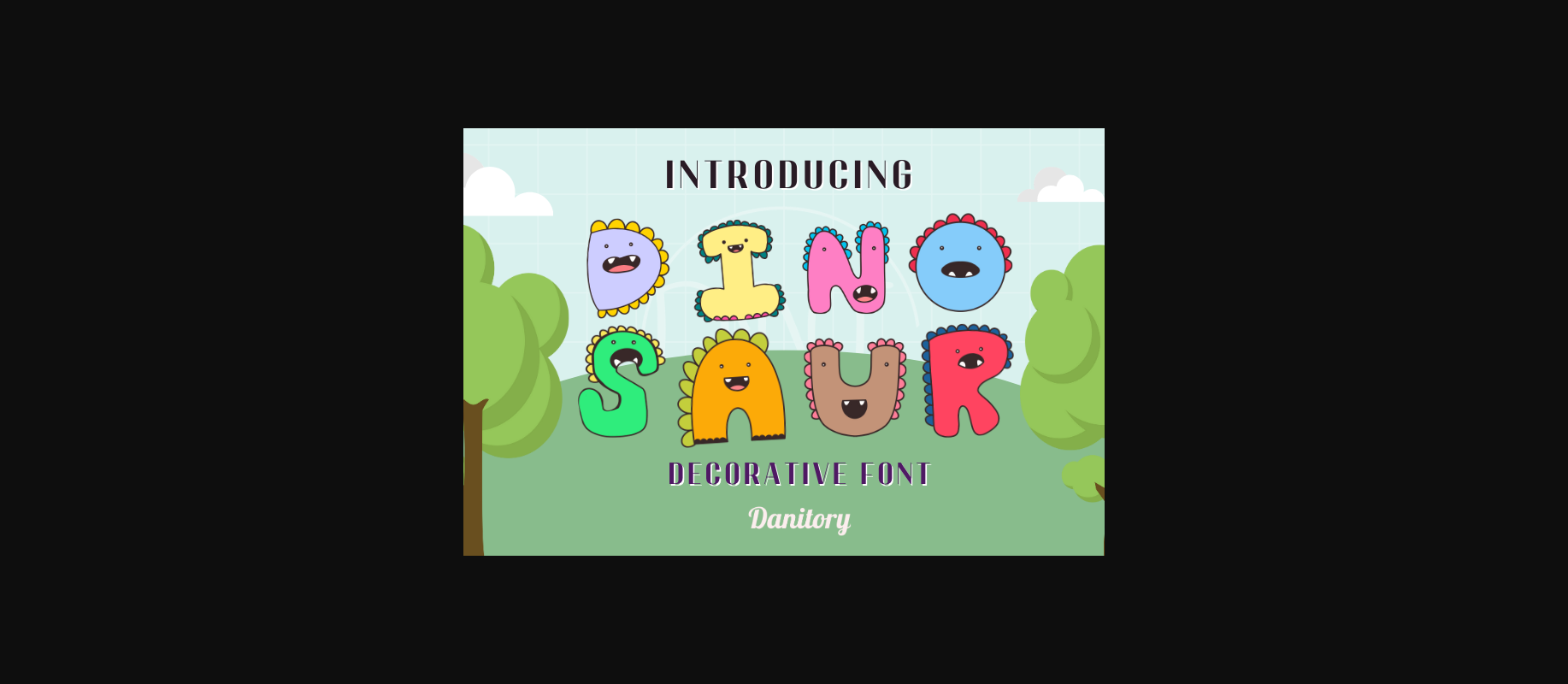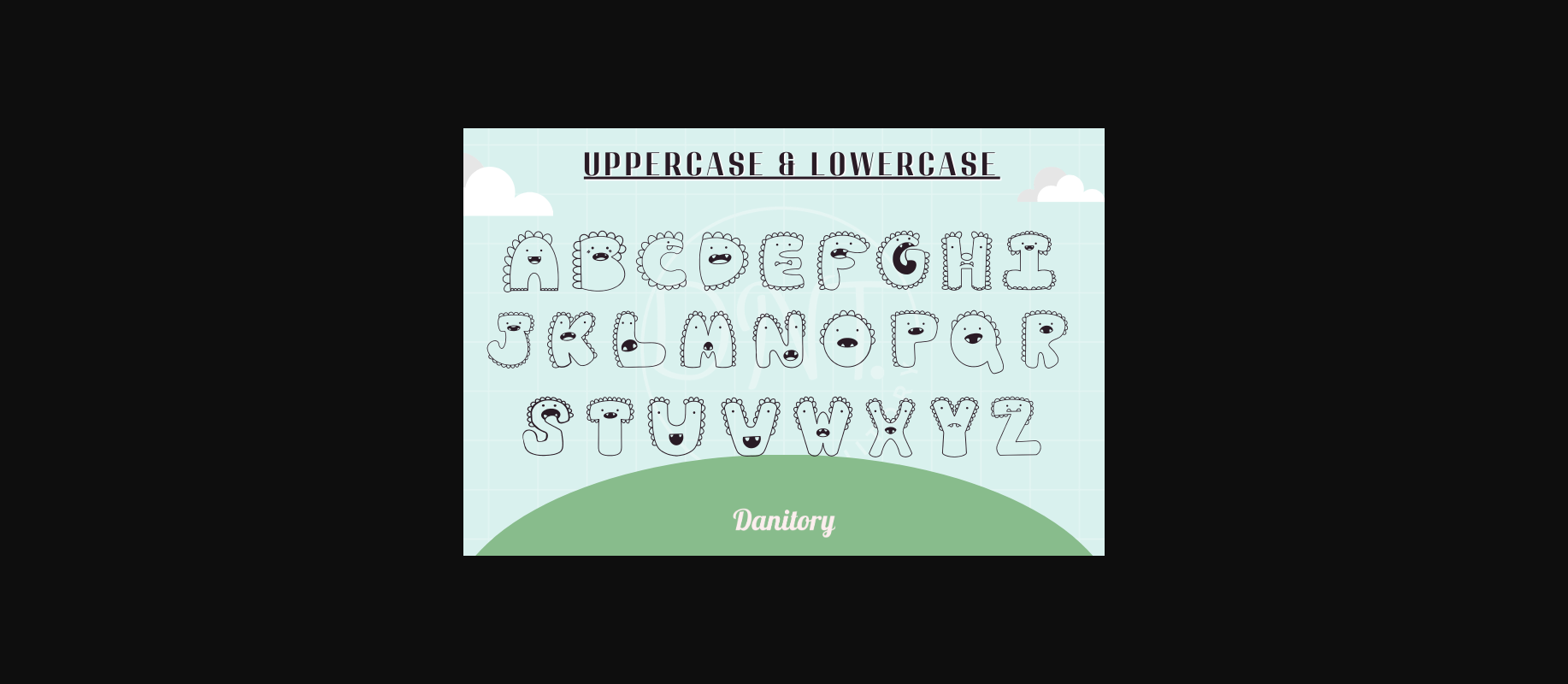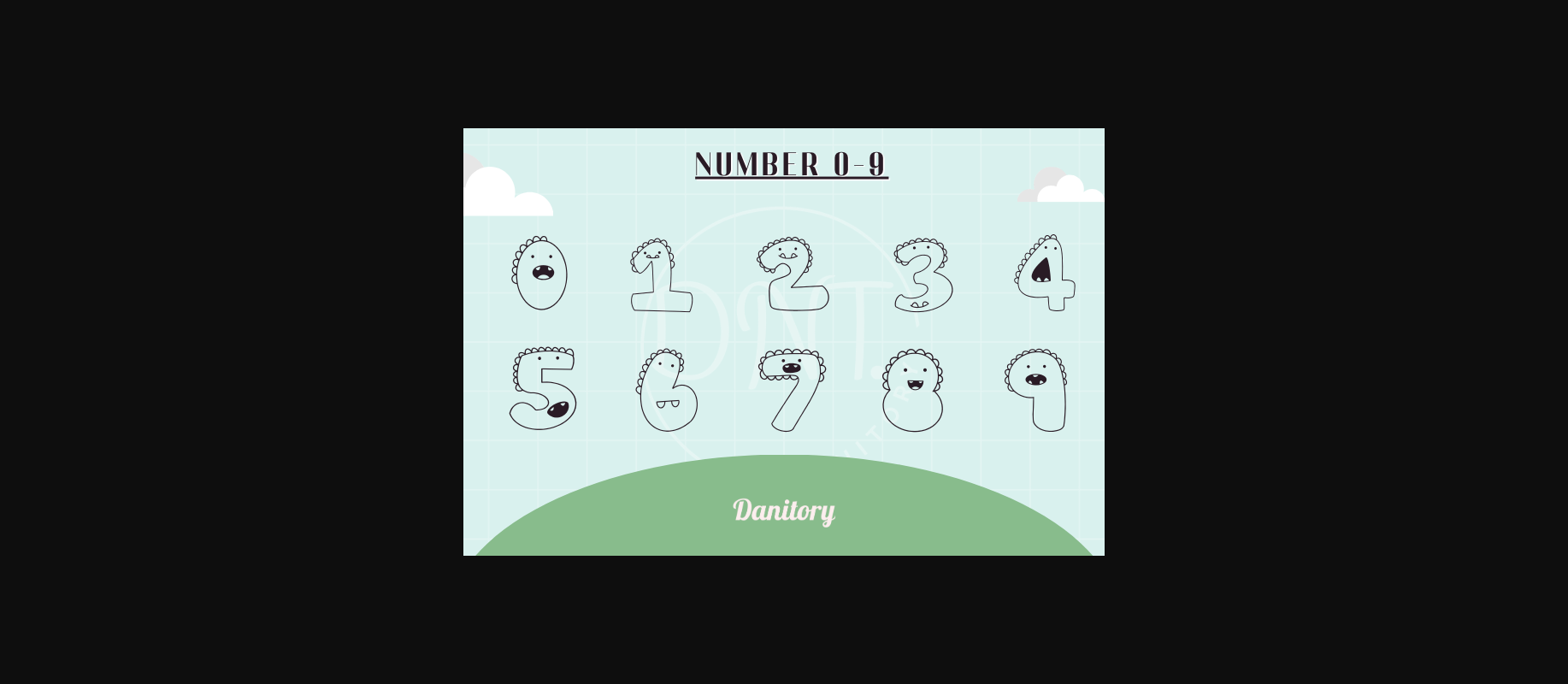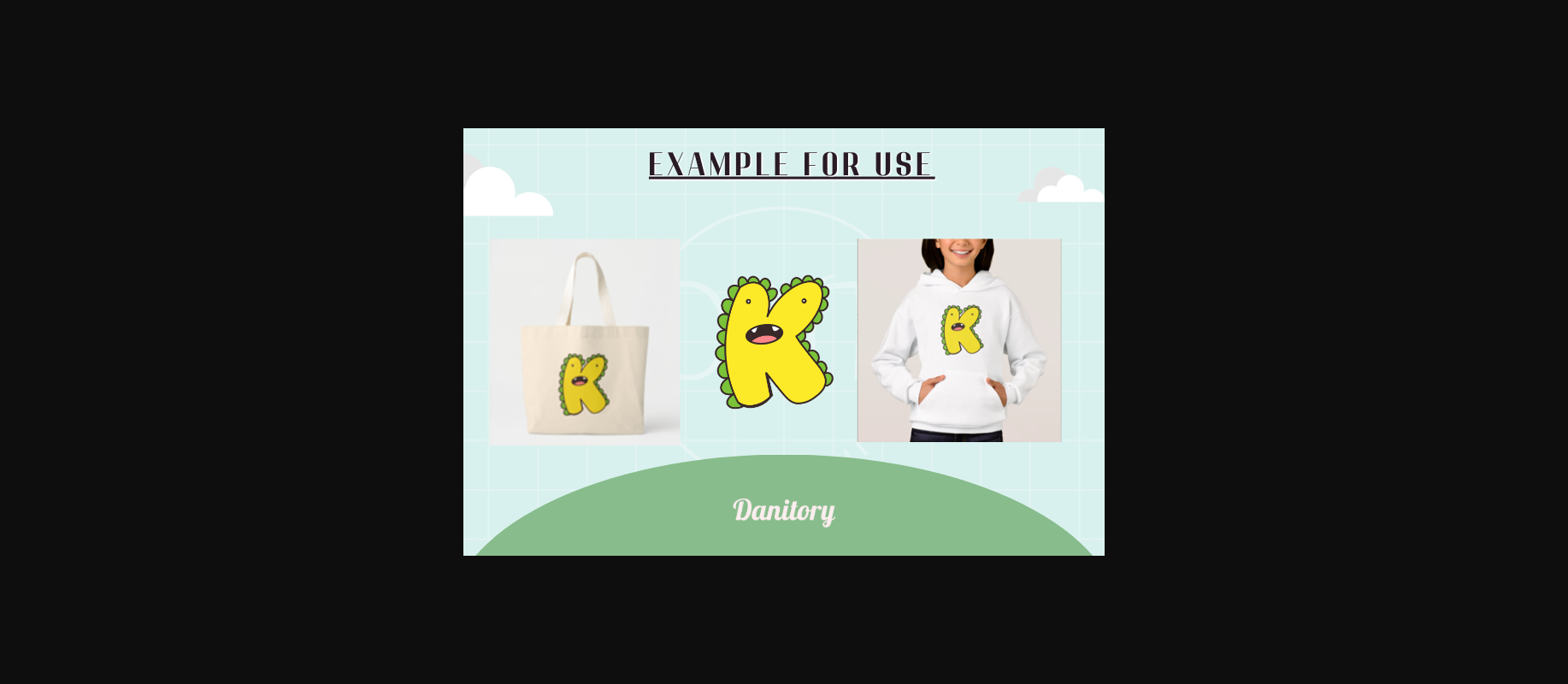
About Dinosaur Font
Dinosaur is a cheerful and lively typeface that brings a childlike innocence and whimsy to any design. The letters are shaped like friendly smiles, adding a playful and celebratory tone to invitations, greeting cards, and packaging. It’s perfect for conveying joy, excitement, and happiness in any design project.